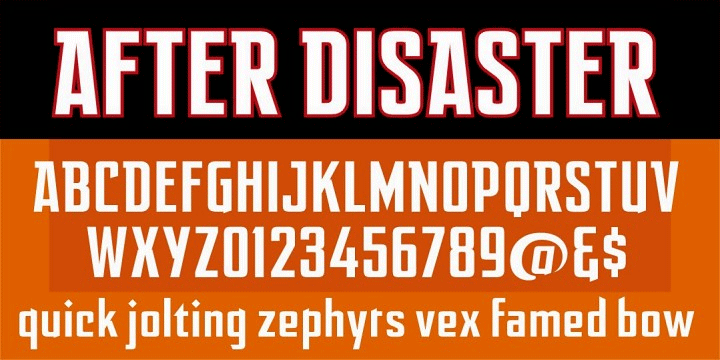
Font name: | After Disaster |
Author: | Fontry |
Note by Fontry | |
After Disaster is a tribute to the gothic styles used by 1960s and 70s comic book letterers. Tall and narrow and sporting those wonderful slab serifs, this font is as equally comfortable doing headline and display work as it is in the role of subordinate and secondary text. A little research shows this style goes back as far as the 1930s. In fact, a vintage sign from a crumbling sign magazine of that era was the inspiration for the lowercase characters. A complete family of After Disaster-based faces--the Earth A.D. Family--is available commercially. |